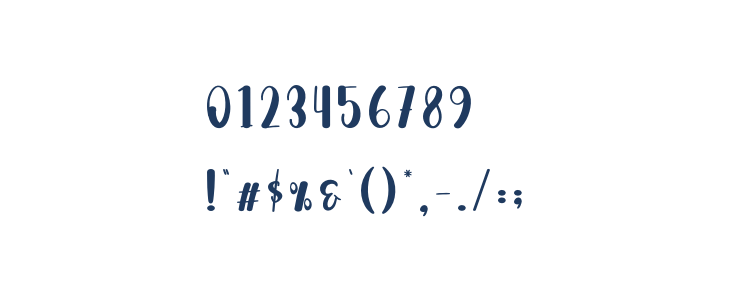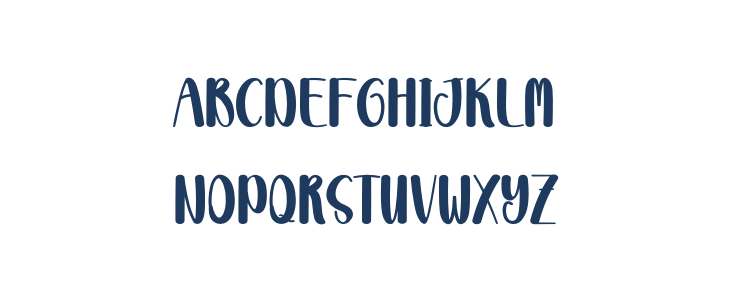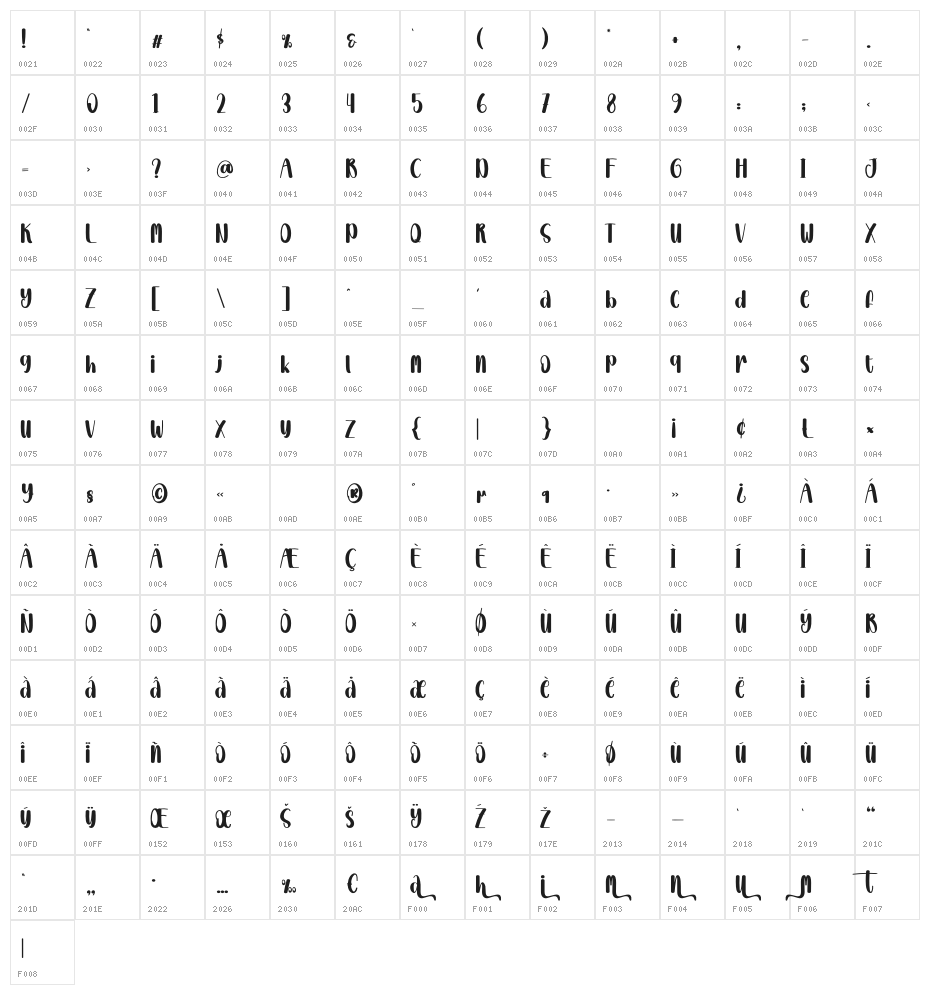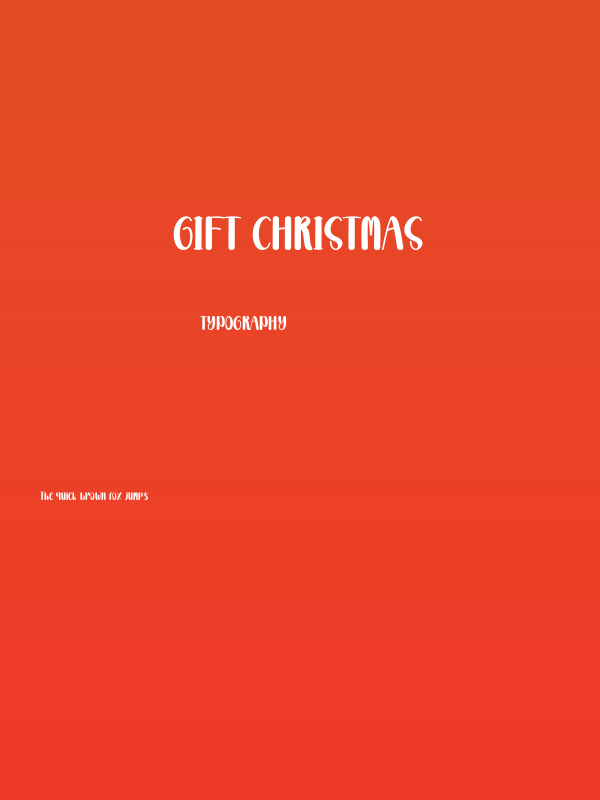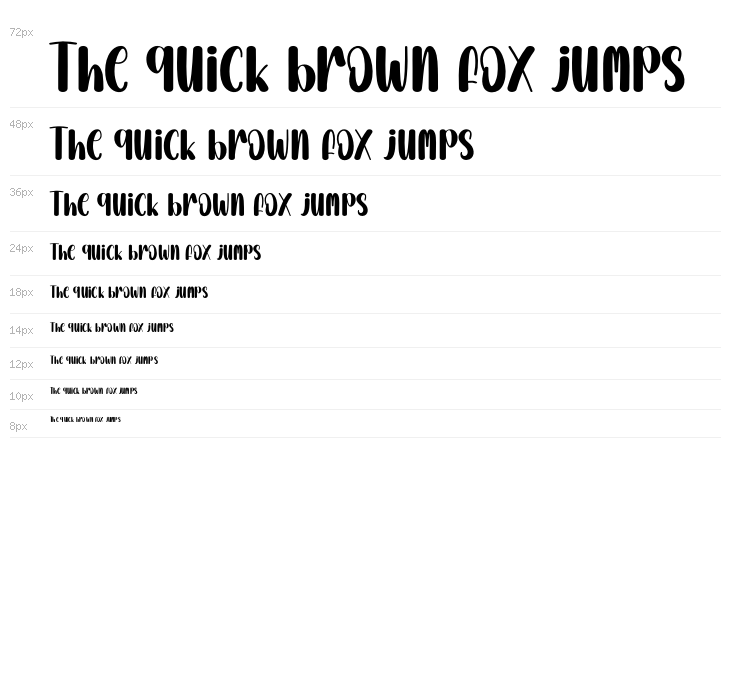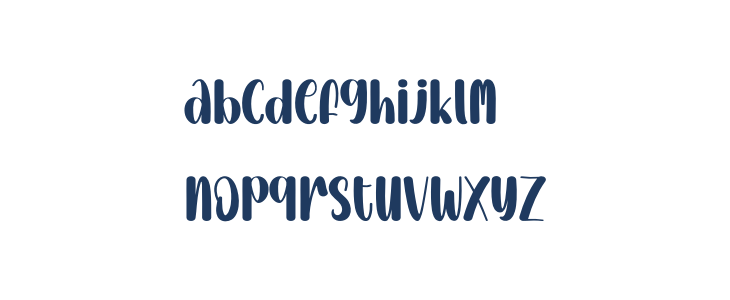
Gift Christmas Font
Gift Christmas Description
A playful, brush-style typeface with rounded edges and a hand-lettered appearance. The strokes are bold and have a casual, festive feel, with some variation in thickness and whimsical curves.
| Overall Style | Decorative, Festive, Playful |
| Use Case | Headlines, Logos, Greeting cards, Posters |
| Proposed Projects | Holiday cards, event invitations, festive posters, branding for seasonal products, social media graphics. |